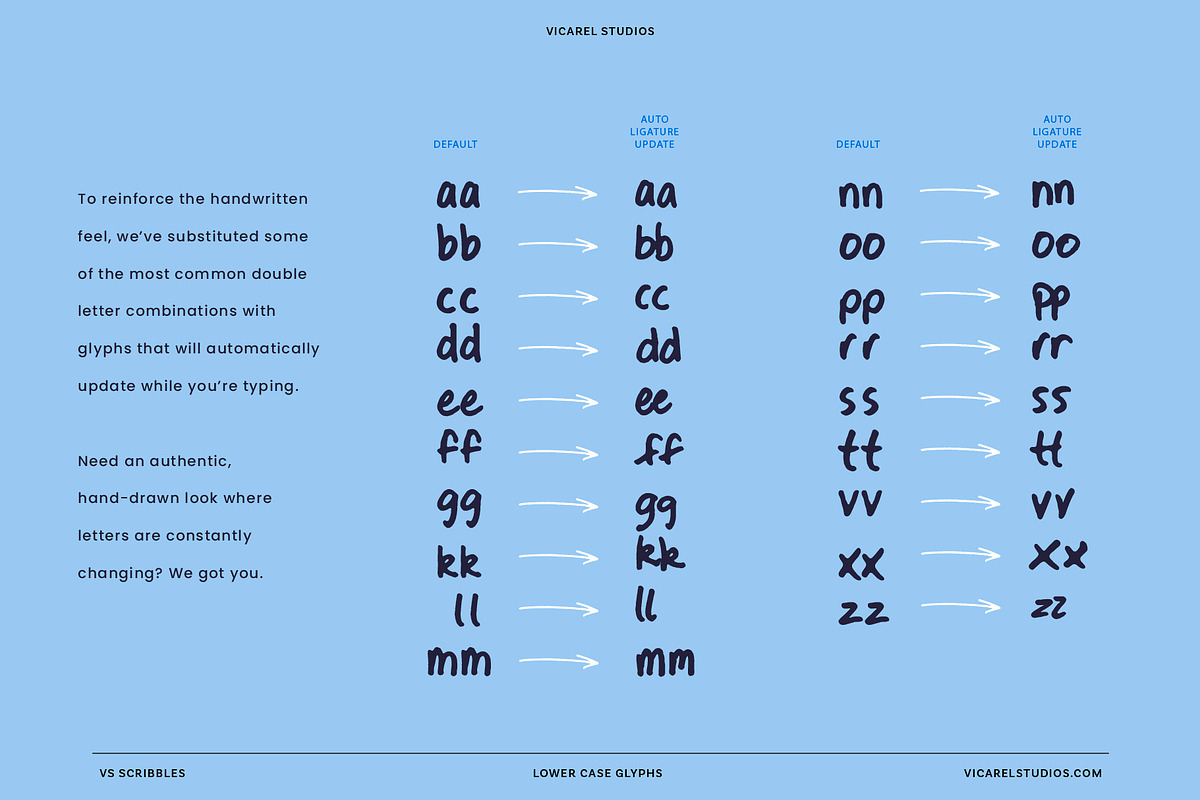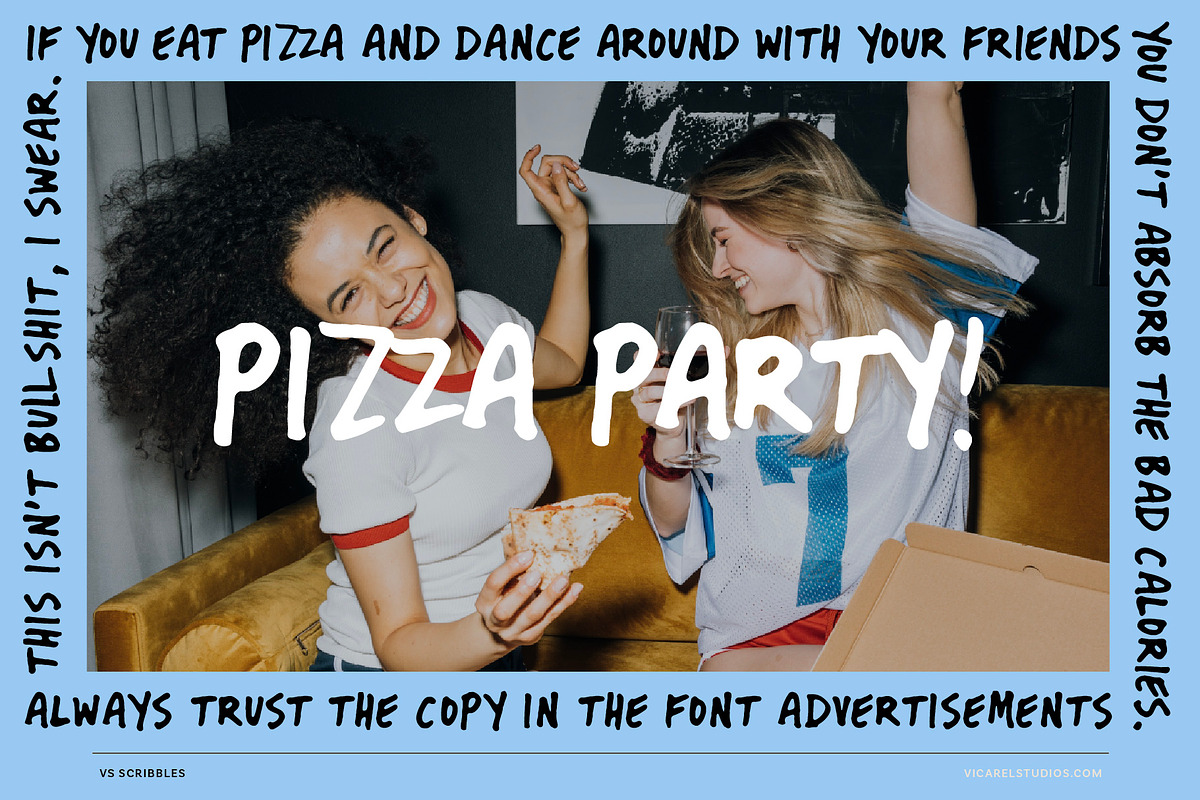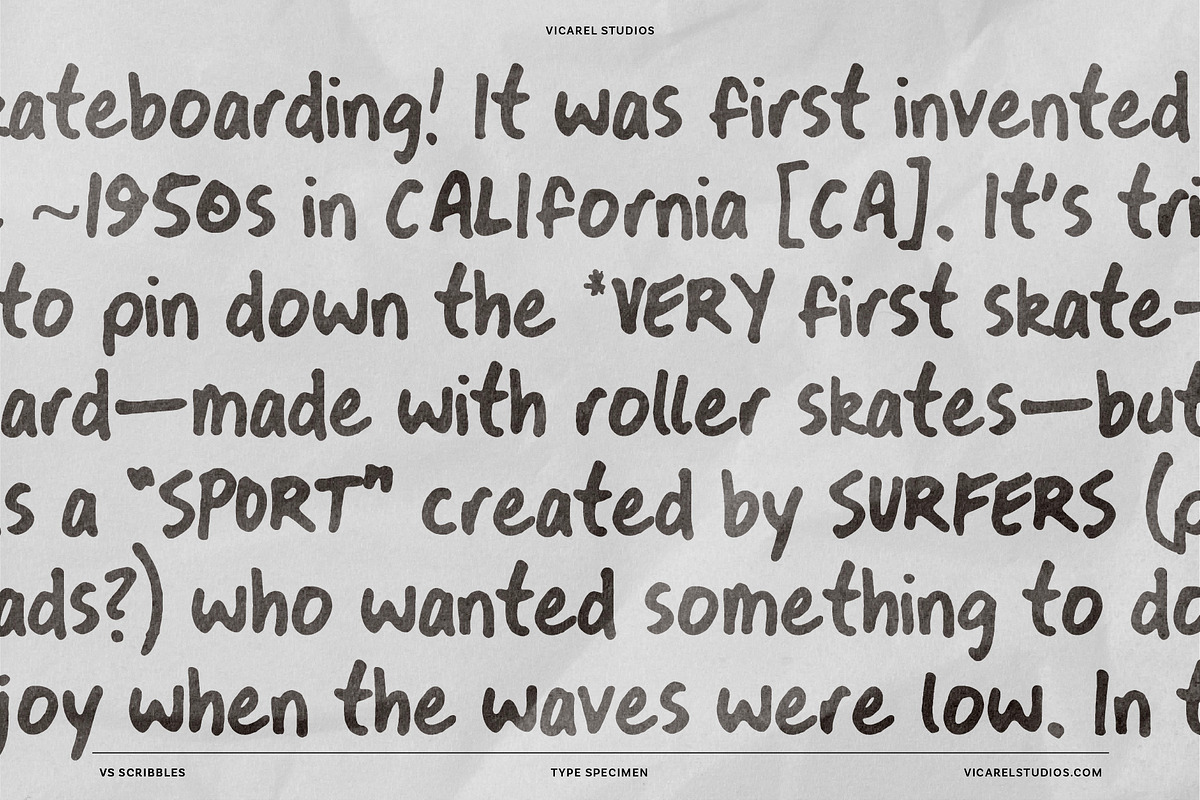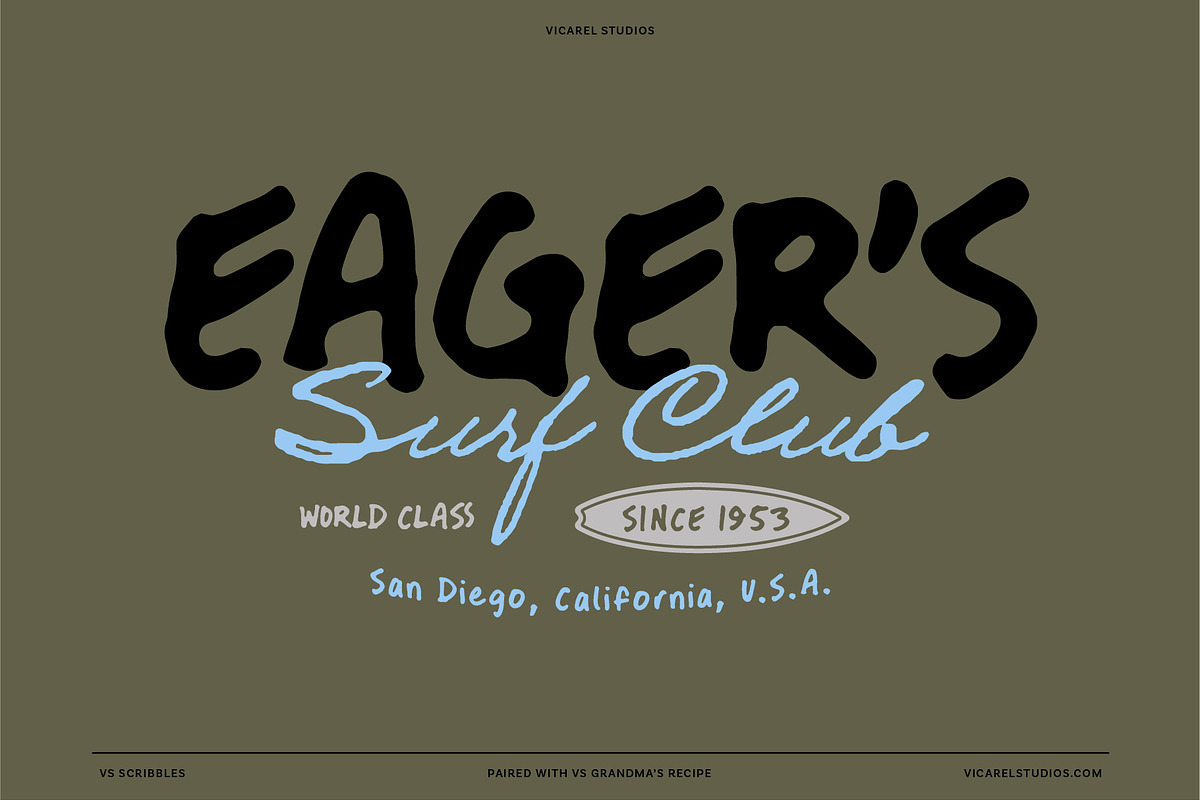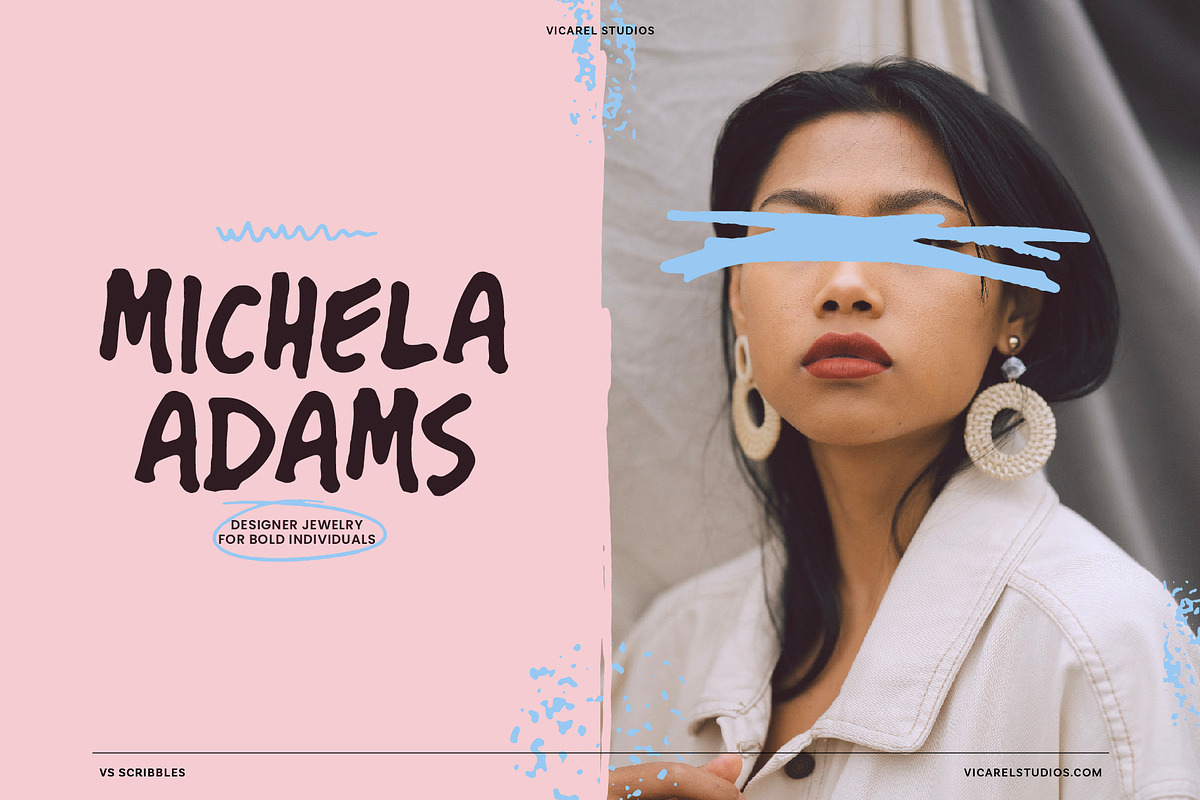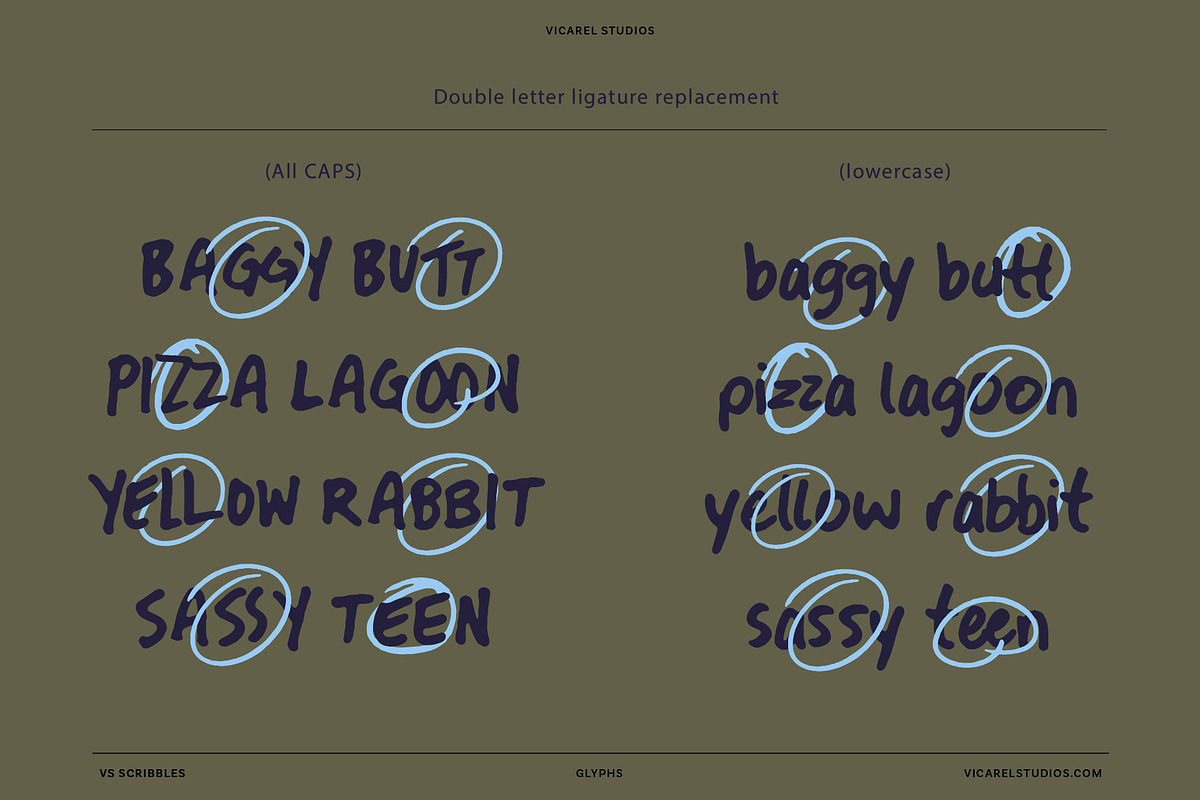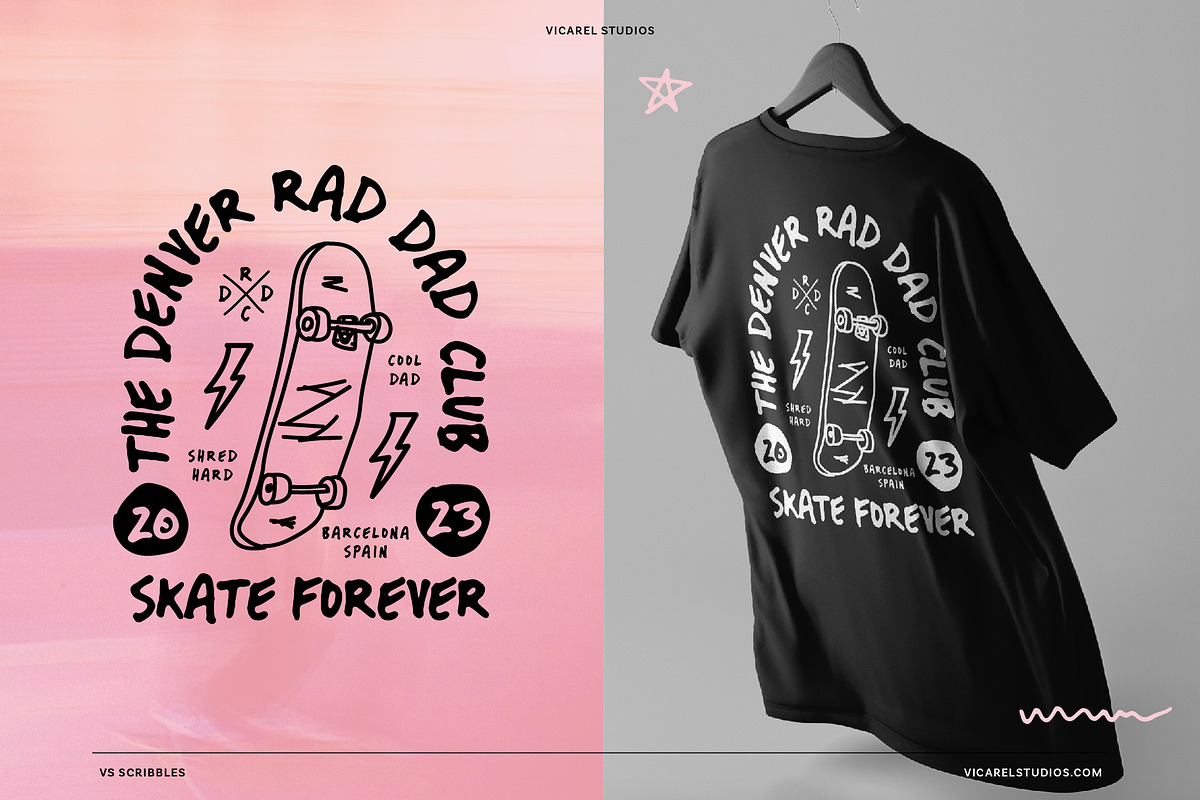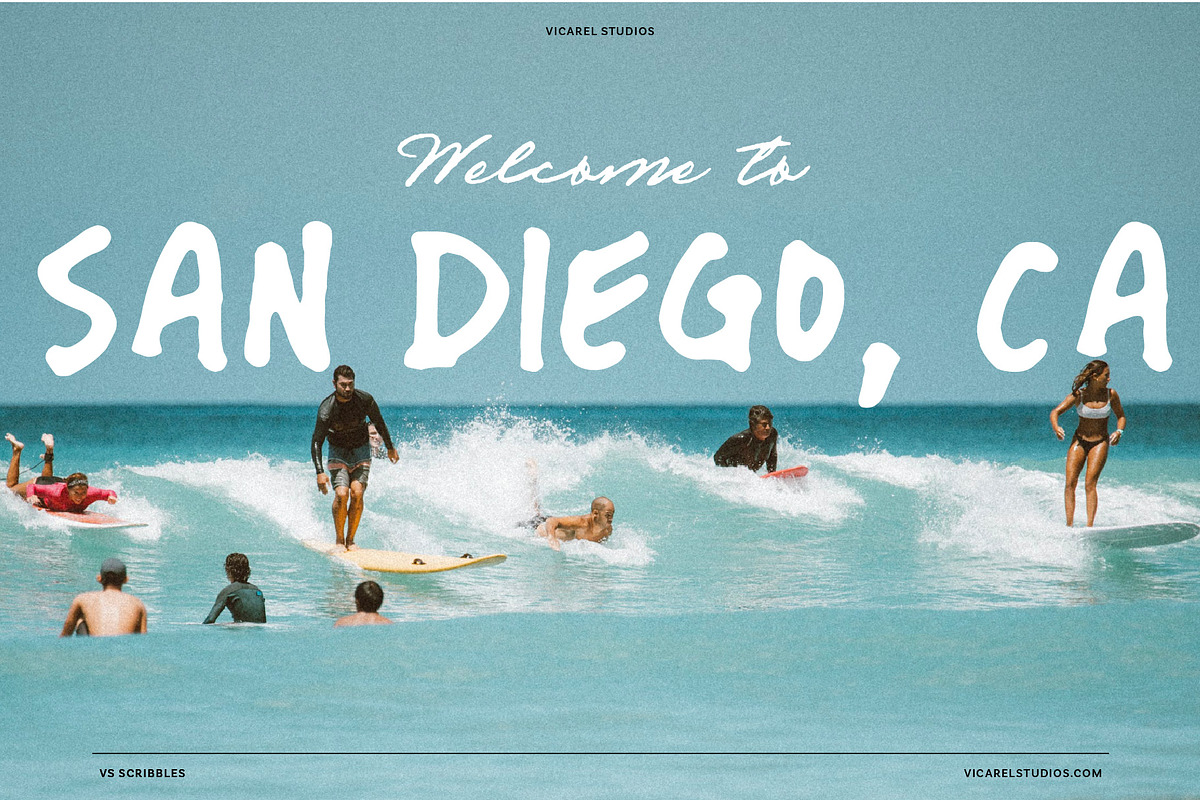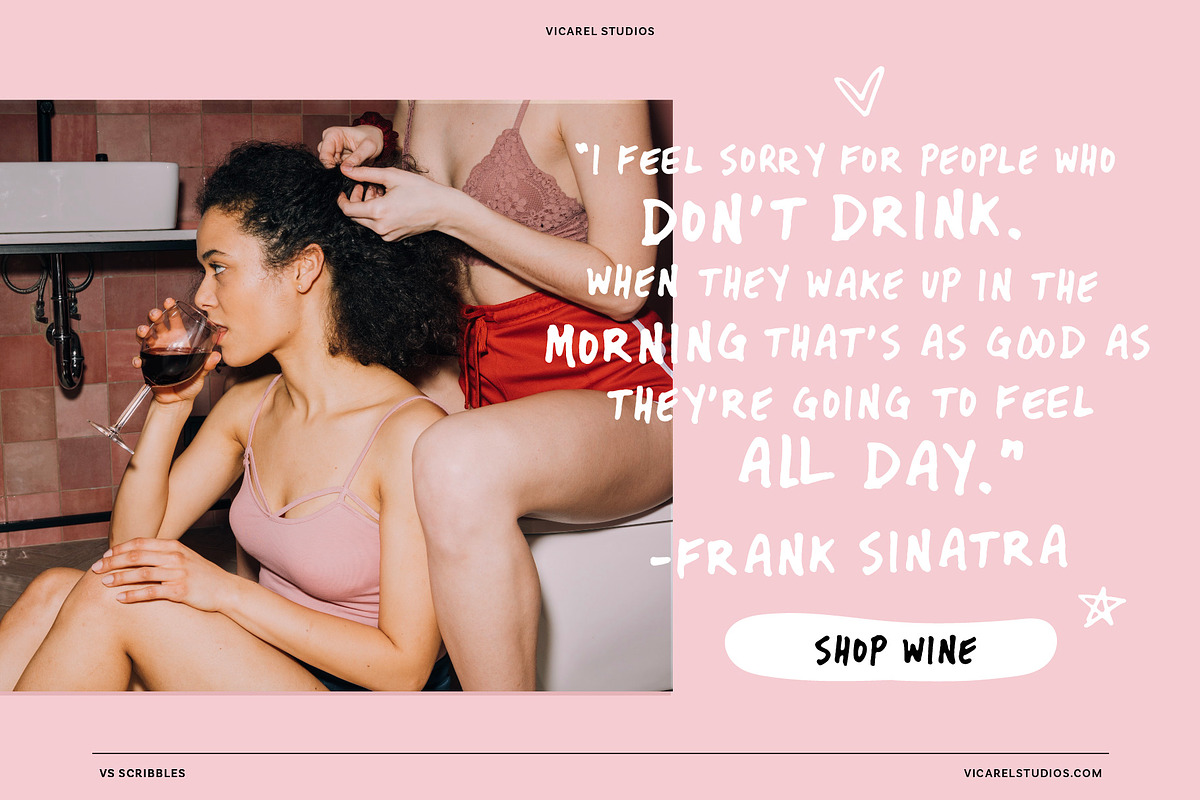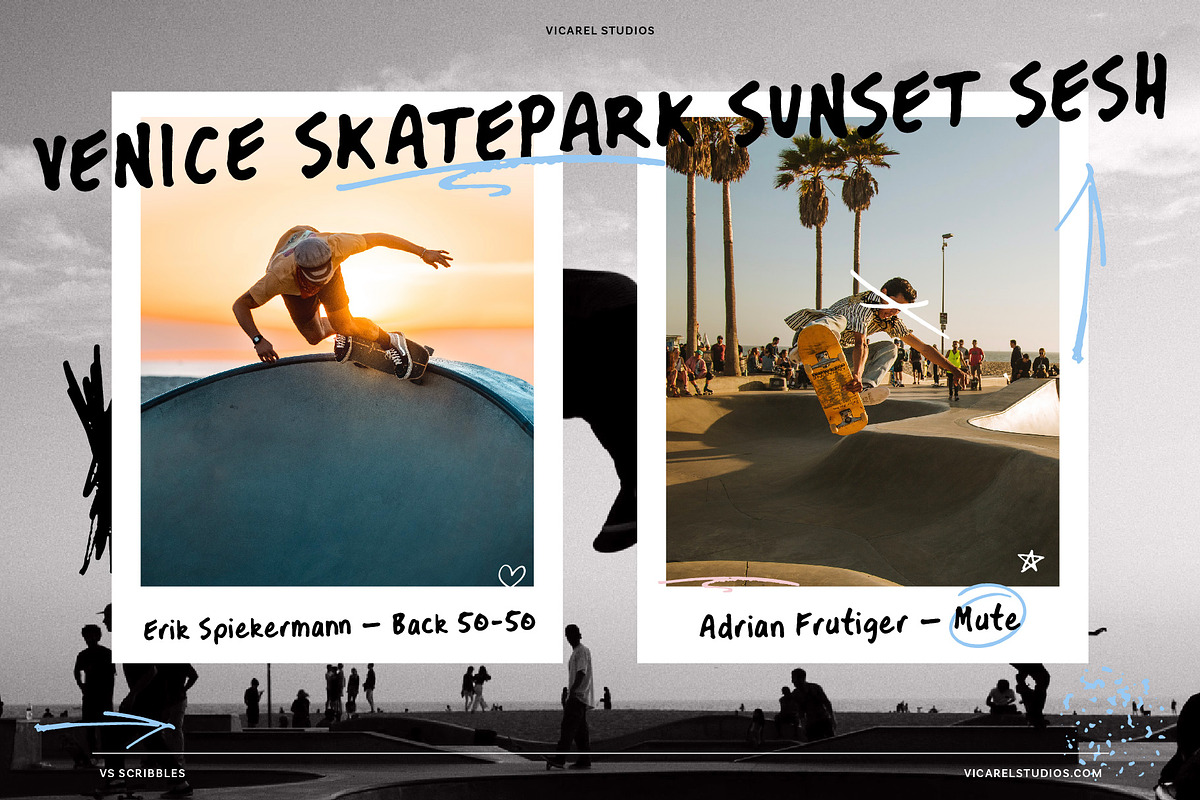
VS Scribbles | A Handwriting Font
VS Scribbles, a natural, handwriting font hand drawn by Vicarel Studios.
- UPPERCASE
- Digits
- 80+ Glyphs
- Auto-ligatures for the most common double letters
We created VS Scribbles to be one of the best handwritten fonts to help your work actually feel hand drawn. With features such as glyphs for common double-letter combinations to give your designs an authentically natural look, this hand-drawn font is perfect for adding a personal touch to branding, packaging, and apparel design.
This realistic handwriting font is perfect for designers and marketers who want to capture the natural look and feel of real handwriting. It's also great for creating handwritten notes, invitations, hand drawn logos, wedding invites, or any design that requires a personal, informal touch. This font was crafted by hand, ensuring that every stroke and curve is authentic and unique. The result is a font that looks like it was written by a human, not a computer.